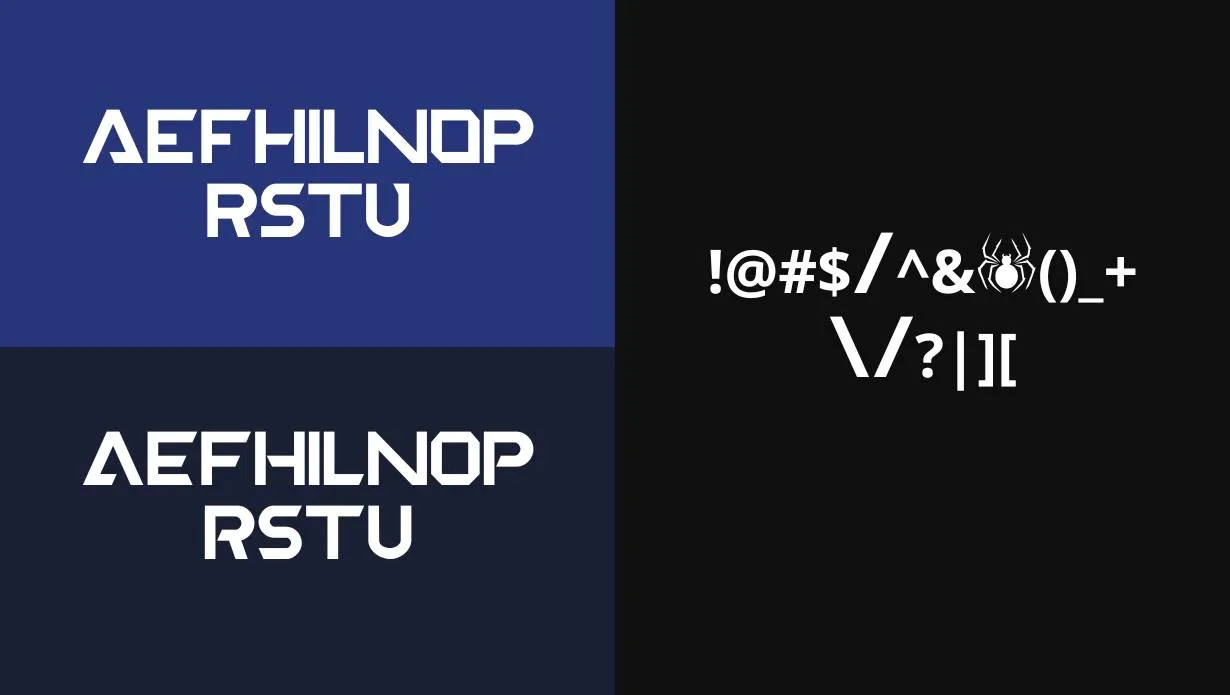
Titanfall Font is a typeface with a futuristic and technical design, often used in sci-fi and gaming-related design projects.
Its bold and angular letterforms convey a sense of innovation and high-tech style in your designs.
| Name | Titanfall Font |
| Designer | SpideRaY |
| Style | Techno |